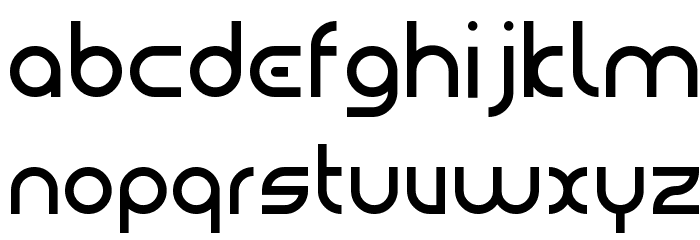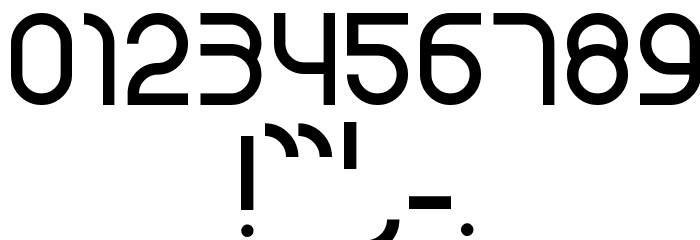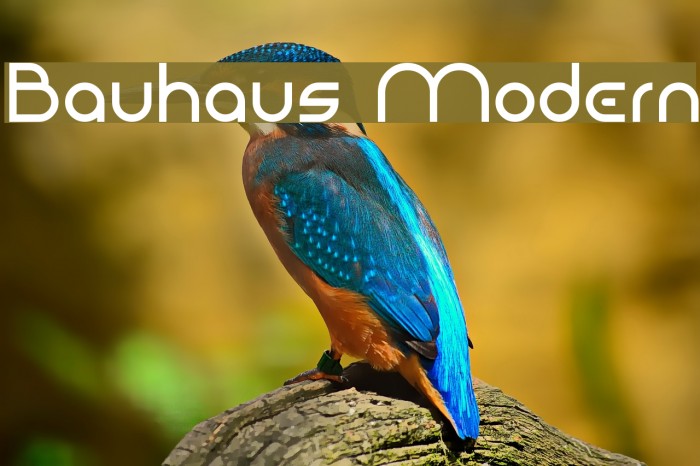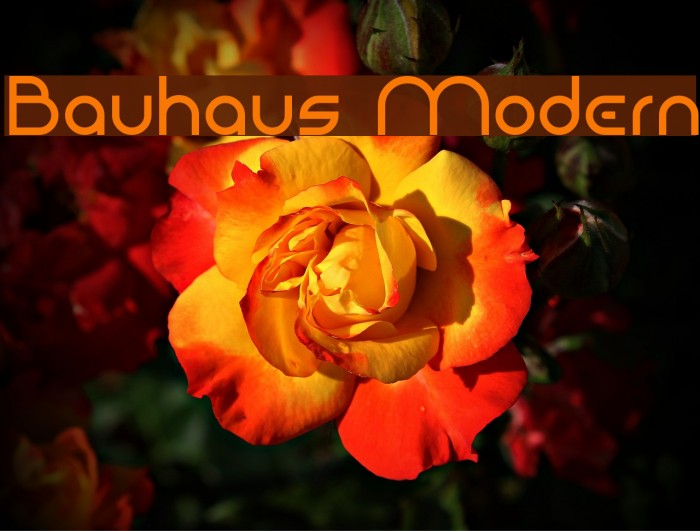
Bauhaus Modern Font
This font embodies a modernist aesthetic with its clean, geometric shapes and uniform line thickness. The characters are constructed with a focus on simplicity and functionality, reflecting the Bauhaus design principles. The rounded edges and consistent stroke width give it a sleek, contemporary look. The uppercase and lowercase letters maintain a harmonious balance, while the numerals and special characters are designed with the same minimalist approach. This font is versatile and can be used in various design contexts where a modern and clean appearance is desired.
A modern, geometric font with clean lines and a minimalist design.
- Proposed Projects: Ideal for modern branding, advertising, posters, and digital interfaces.
- Category: Modern
- Use Case: Headlines, Logos, Digital interfaces